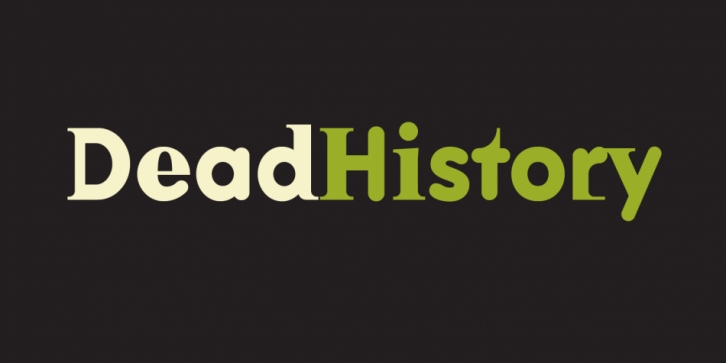
Publisher: Emigre
Designed by P. Scott Makela, Dead History is a display font family. This typeface has two styles and was published by Emigre.
Makela designed this typeface in the period during which digital processes were becoming accepted as mainstream tools for graphic and communication designers. The past, especially in typography, is often an inspiration for contemporary designers; not so for Makela, whose Dead History design signals the end of an era of traditionally produced fonts. It personifies a new attitude in type creation marked by the design of hybrid typefaces which are largely the result of the computer’s capabilities to function as the perfect assembling tool.
Started by Makela while studying in the graduate design program at Cranbrook, he began his design of Dead History by mashing together two existing digital fonts — Linotype’s Centennial and Adobe’s V.A.G. Rounded — to create something entirely new and unexpected. It went through numerous stages of assembly and disassembly before it was licensed to Emigre Fonts in early 1994. There it was finally redrawn from scratch and completed by Zuzana Licko.
In 2011 Dead History was one of 23 digital typefaces included in the permanent architecture and design collection of the Museum of Modern Art in New York.